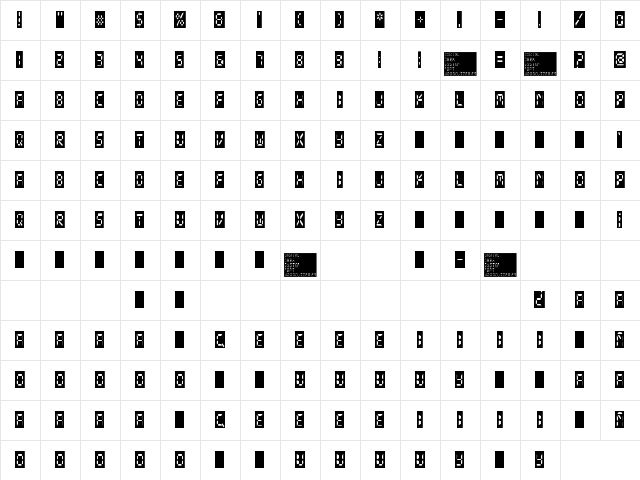
digital dark system Regular
| Designer | Woodcutter Manero |
Design Context for digital dark system Typeface
digital dark system has a distinctly futuristic character, with geometric precision and clean angles that feel at home in technology, gaming, and sci-fi contexts.